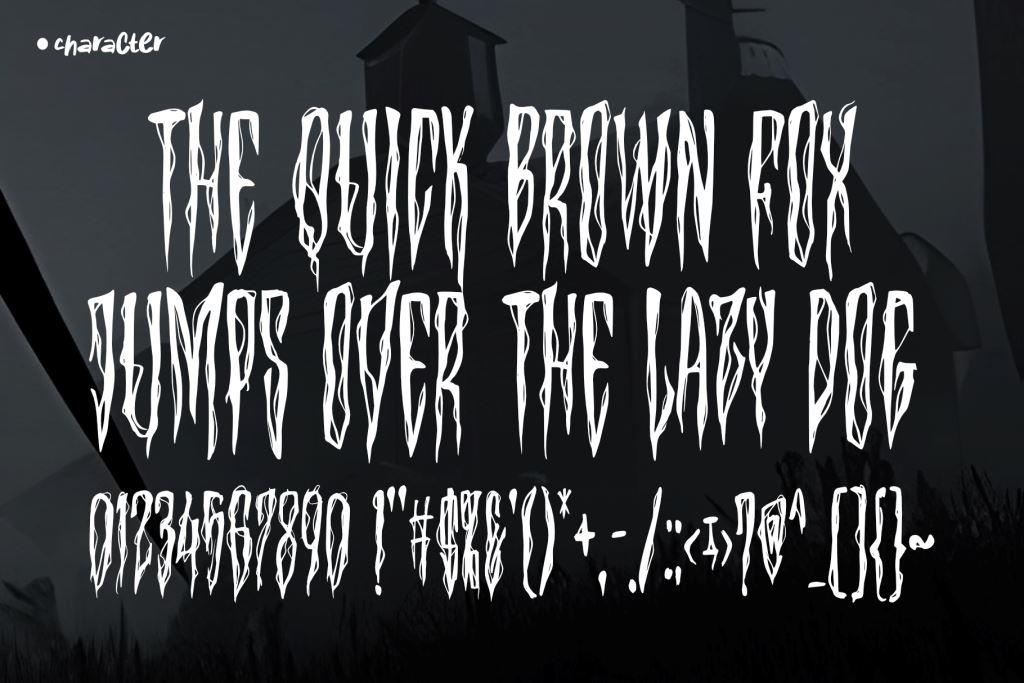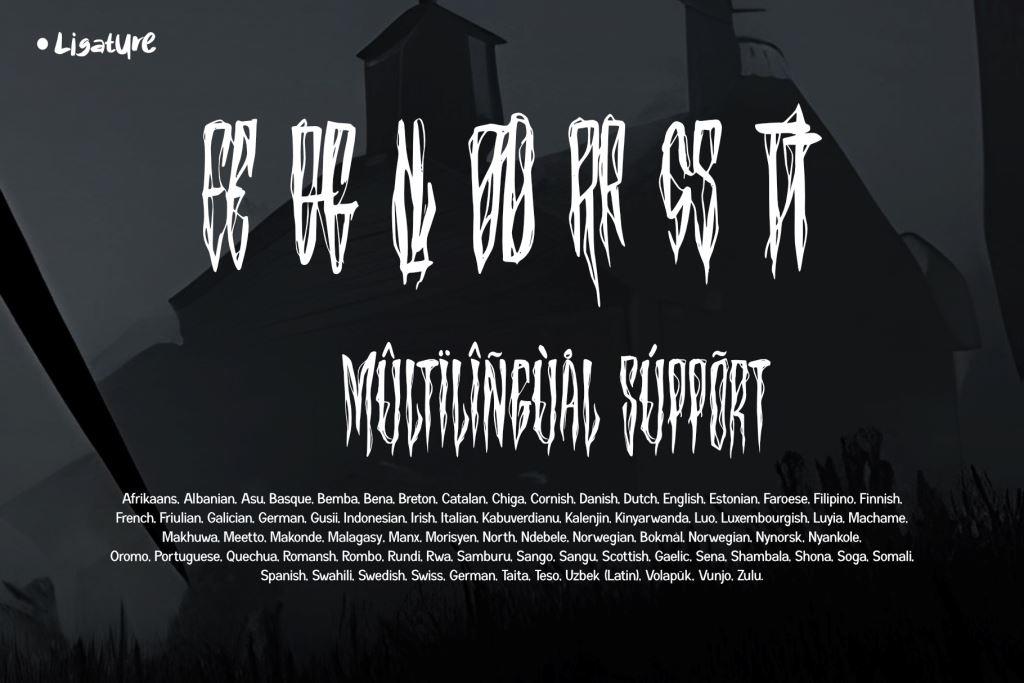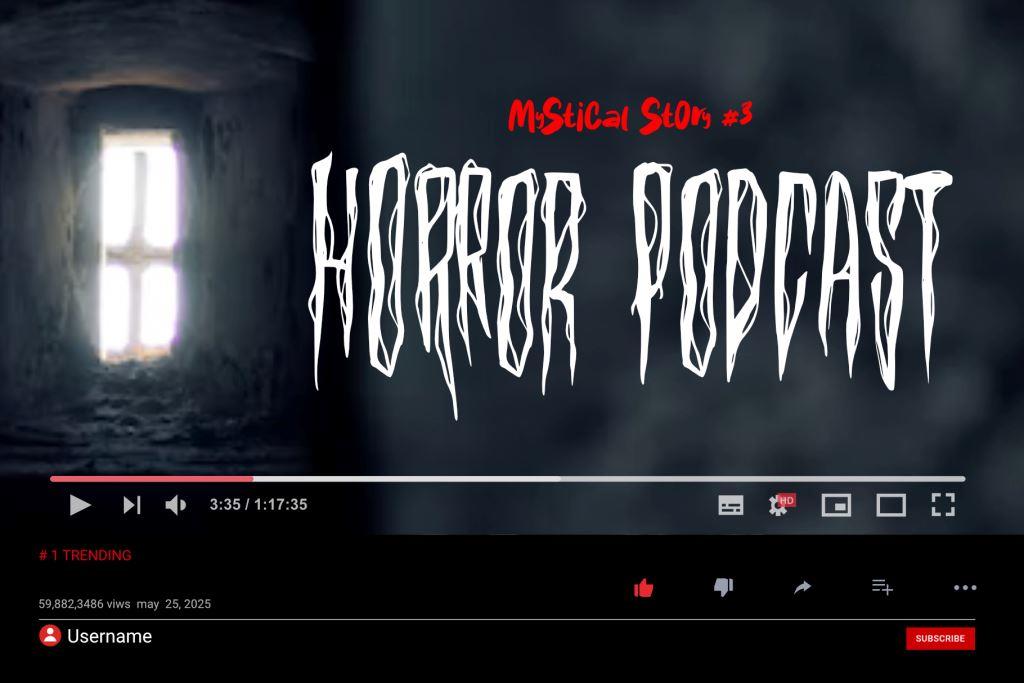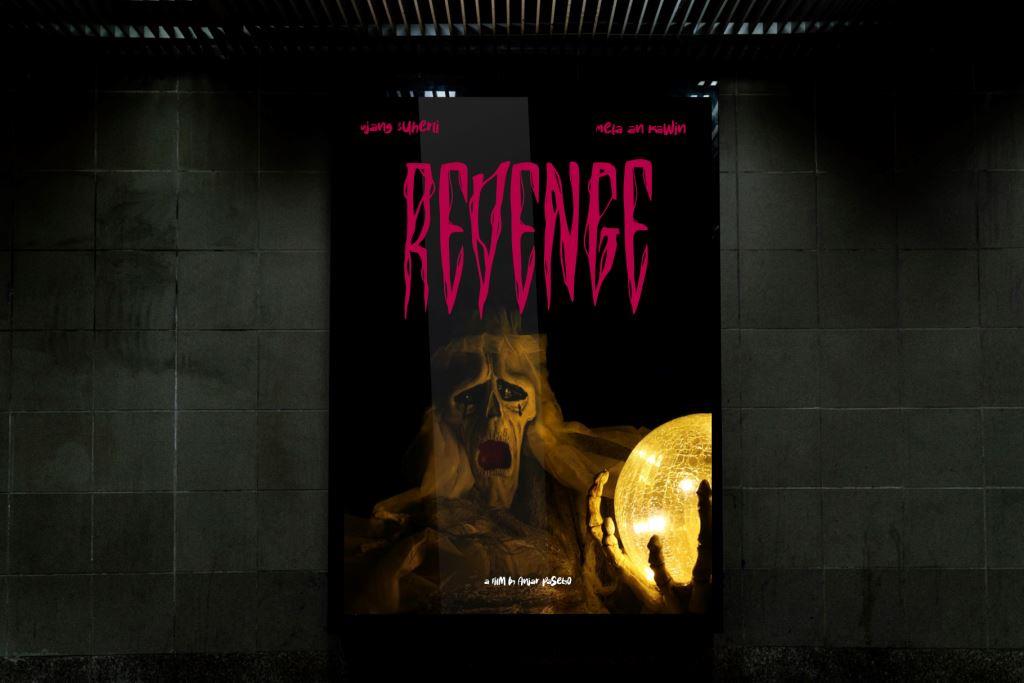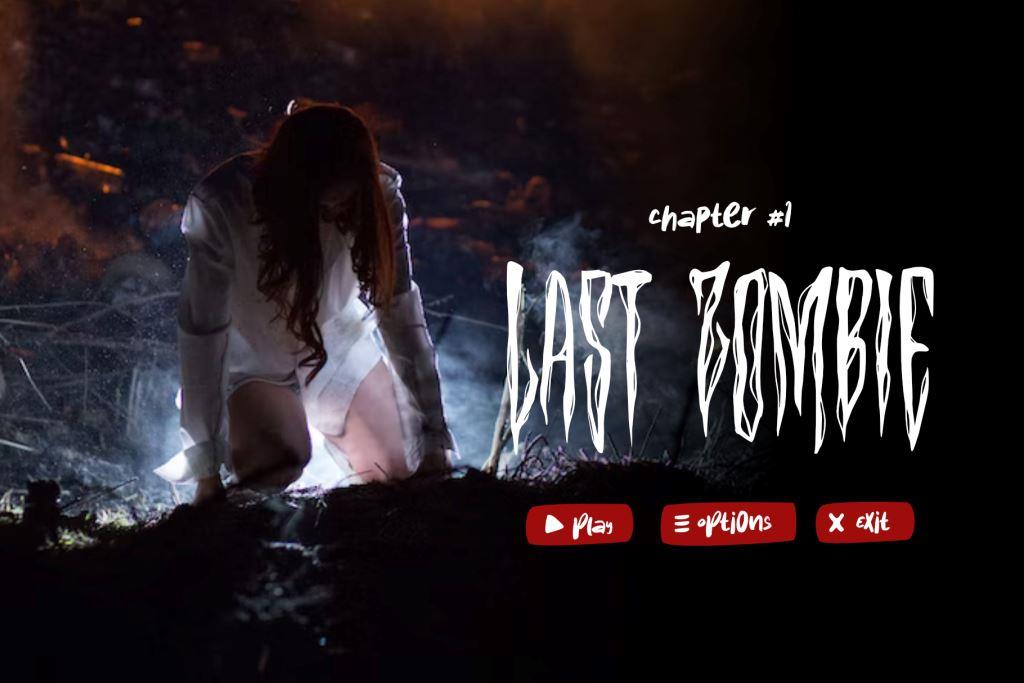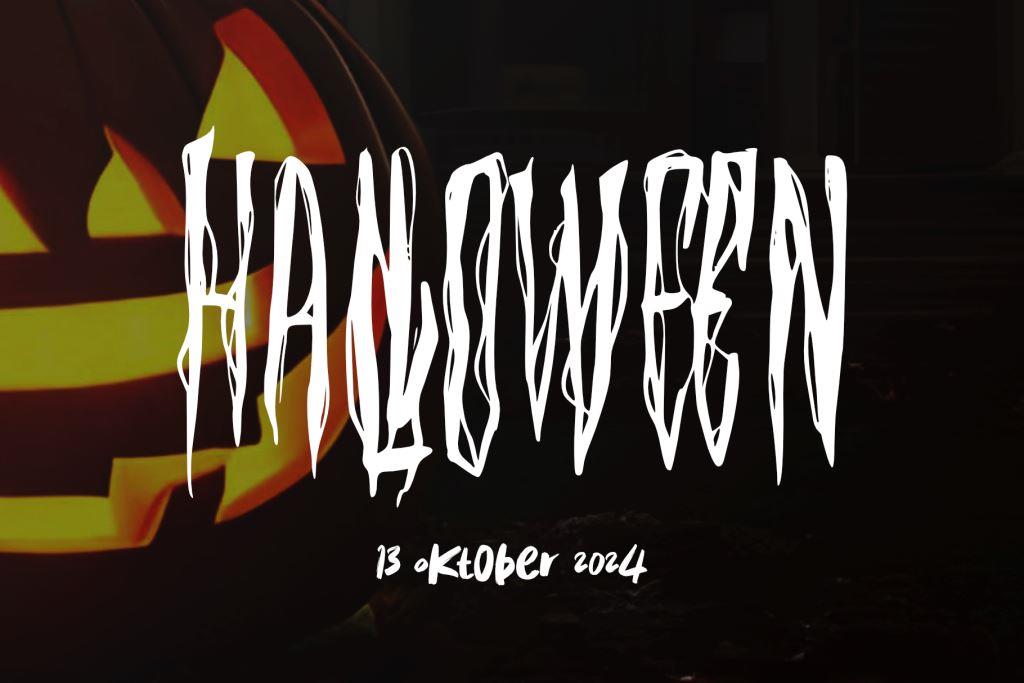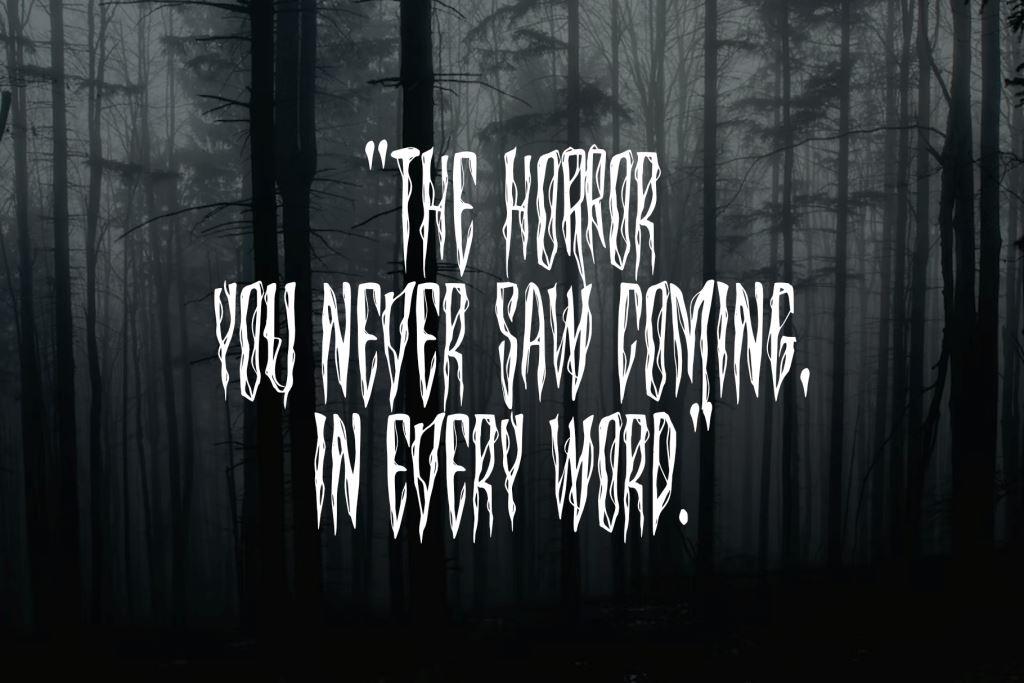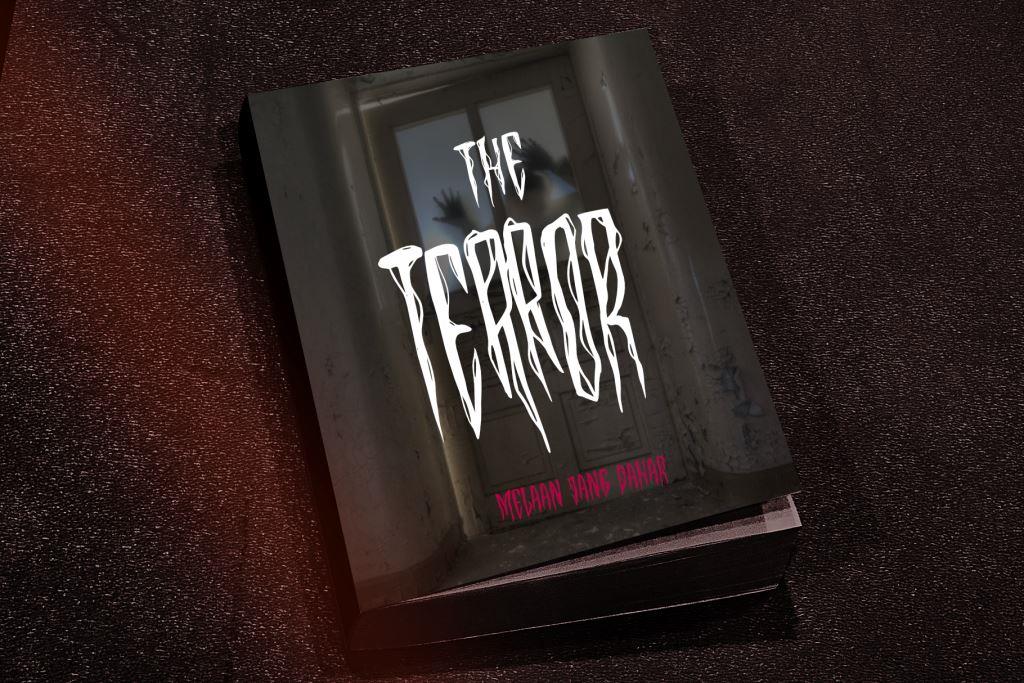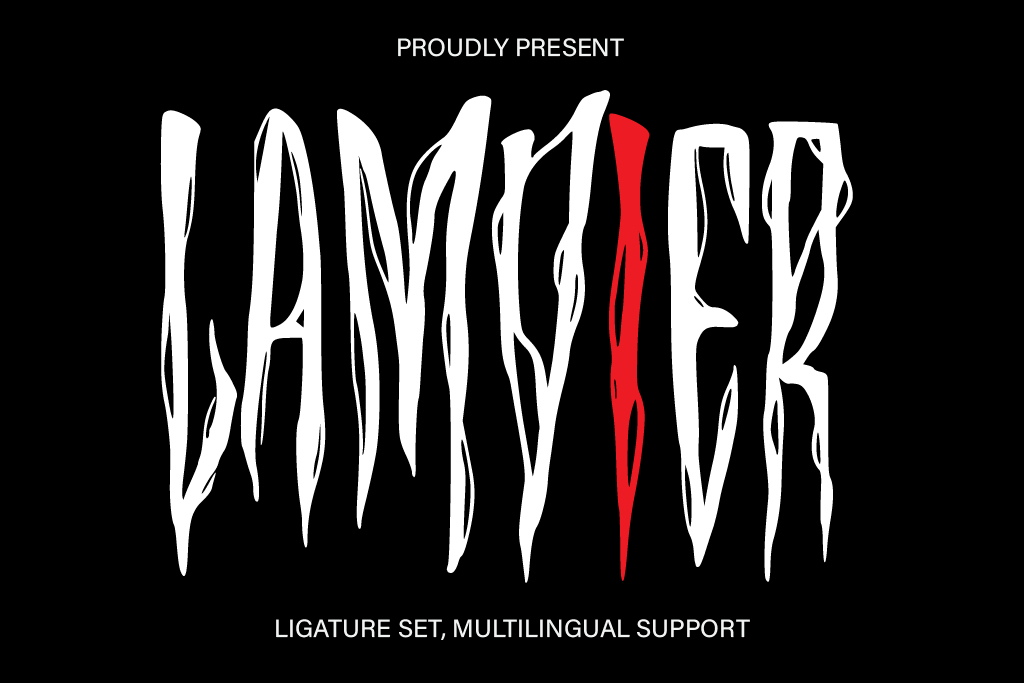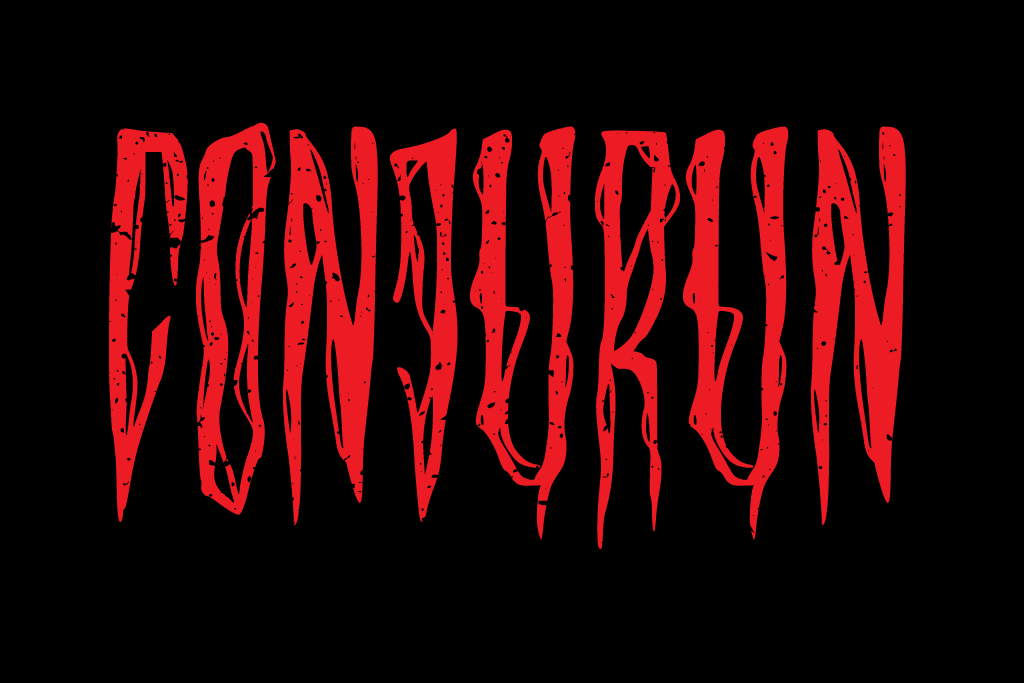
- Lamvier
Lamvier is a scary font that creates the impression of blood flowing with sharp and creepy details. Using only uppercase letters, Lamvier provides a strong and intense impression on every design. Suitable for use in titles, headers, posters, books, films, video games, and other designs that require a scary effect.
Lamvier gives a spooky and mysterious atmosphere to each letter. With strokes like hand scratches, this font gives a strong horror impression, like writing written in blood. This will provide a frightening and deep impression on viewers and readers.
Lamvier also comes with Multilingual support, making it possible to use in English and several other languages. This ability provides flexibility for designers to include the font in their designs without worrying about losing the desired scary effect.
In its use, Lamvier provides ease for designers to create scary and unique text effects in their designs. Each letter has sharp and intense details, giving the impression of blood flowing horribly. In combination with the right colors and smart use, Lamvier can provide a frightening and deep horror effect on every design.
Lamvier provides the perfect design solution for those looking for a scary and intense font for their design projects.
+ Ligature
+ Multilingual Accent